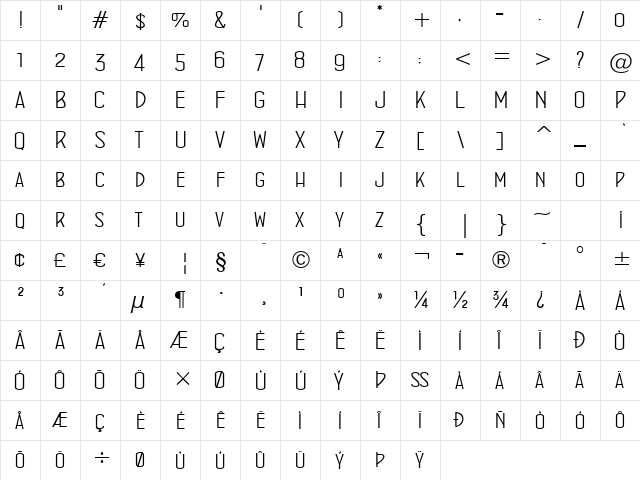
ConcursoItalian BTN Wide Regular
Design Context for ConcursoItalian BTN Wide Typeface
ConcursoItalian BTN Wide offers clean, dependable letterforms without strong stylistic allegiance, making it a practical choice for designers who need flexibility.
Pro Tip: Use ConcursoItalian BTN Wide in both headline and body roles to test its range before committing to a single application.